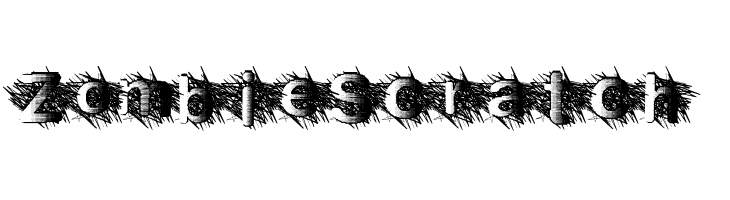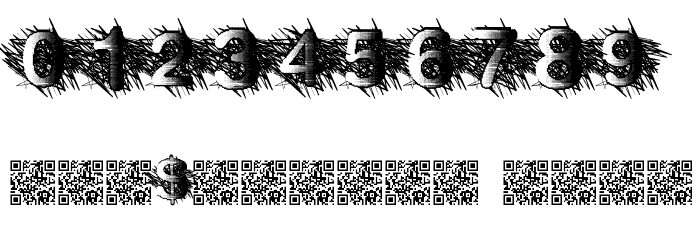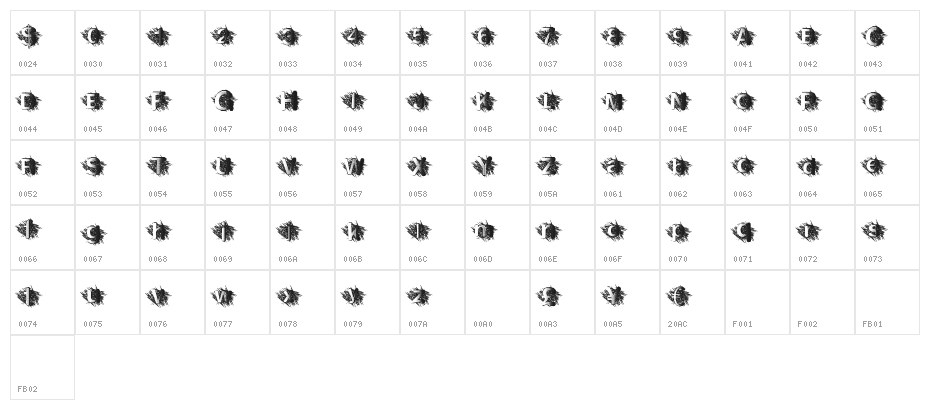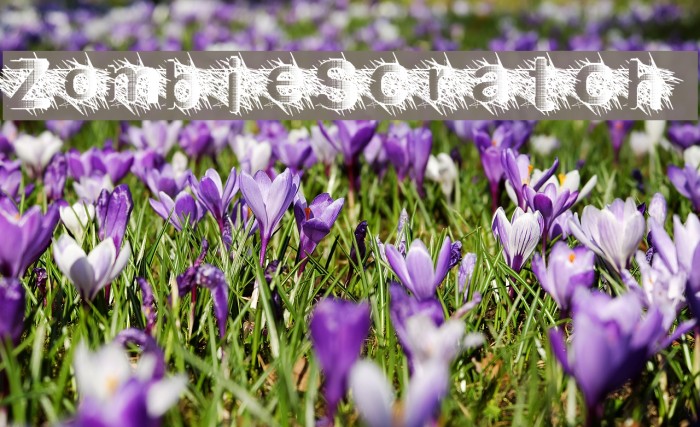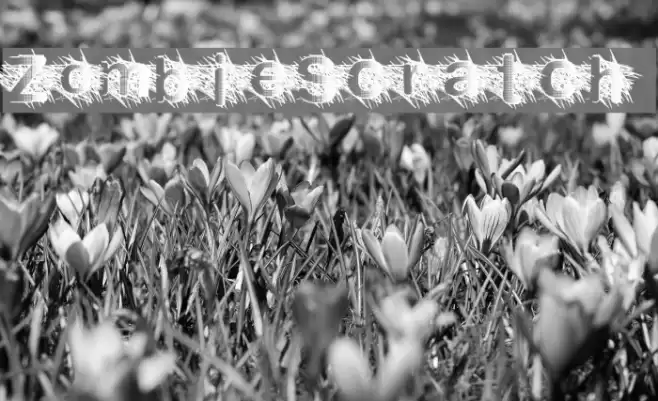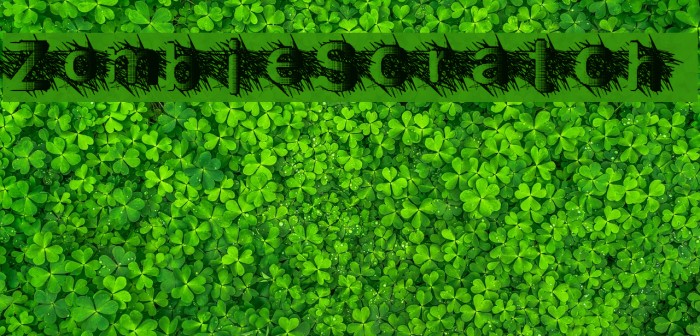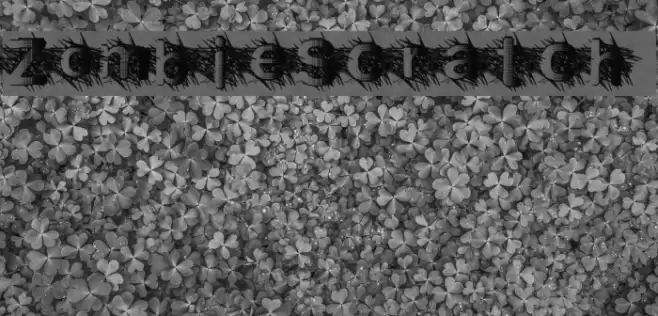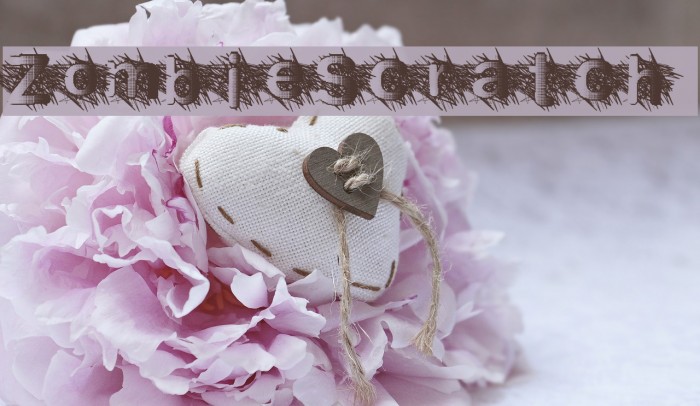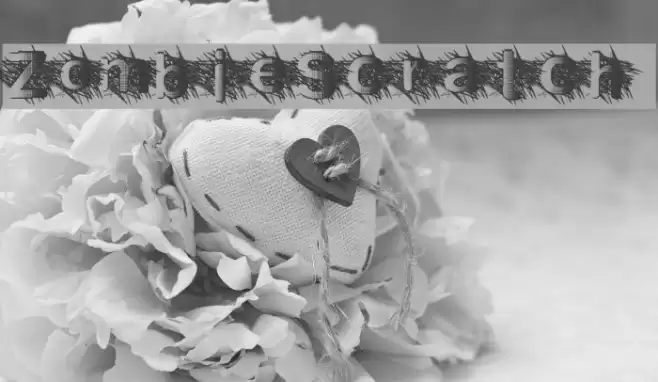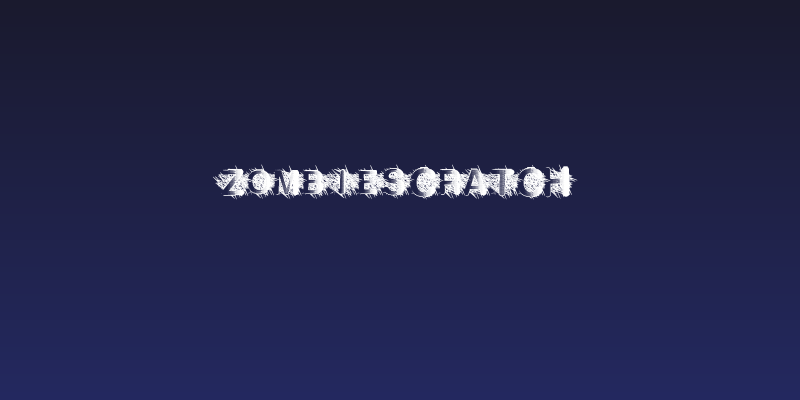
ZombieScratch Font
ZombieScratch Description
This font exudes a chaotic and edgy aesthetic, characterized by its jagged, scratch-like outlines that give each character a distressed and rugged appearance. The bold, thick strokes are interspersed with irregular, sharp edges, creating a sense of movement and energy. The uppercase and lowercase letters maintain a consistent style, with numbers and special characters following suit. The overall look is reminiscent of horror or thriller themes, making it ideal for designs that require a dramatic and intense visual impact.